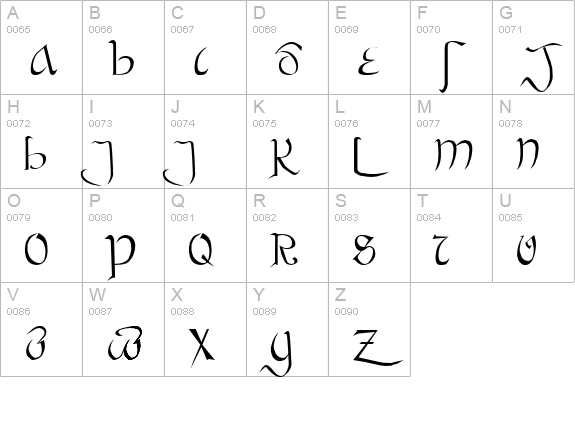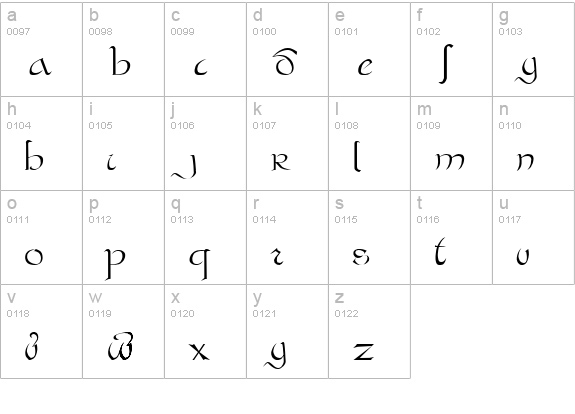
Bastarda Plain: Font Details
Bastarda Plain is a stunning and versatile font that exudes elegance and sophistication. With its unique combination of classic and modern elements, this font is perfect for a wide range of design projects, from branding to editorial design. The sleek lines and sharp edges of Bastarda Plain make it a standout choice for any designer looking to make a statement. What sets Bastarda Plain apart is not only its striking aesthetic, but also the fact that it is available for free download at FontsMarket.com. This means that designers of all levels can access this beautiful font and use it to elevate their projects without any cost. Whether you're working on a personal project or a client's design, Bastarda Plain is sure to impress with its timeless appeal and professional quality. Download Bastarda Plain today at FontsMarket.com and discover the endless possibilities this font has to offer. Elevate your designs with this free and stylish font that is sure to make a lasting impression.